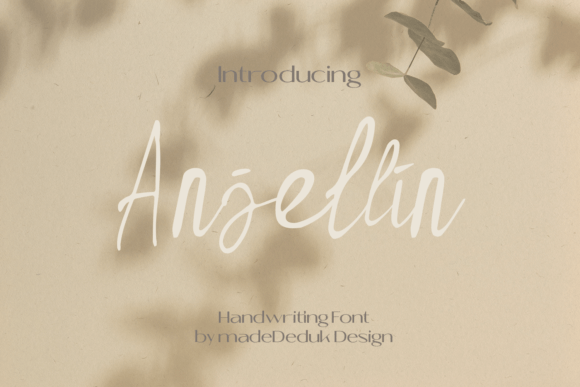
The Art of Handwritten Perfection: Introducing Anjellin Script Font
Do you remember the moment when you first discovered a font that perfectly captured the essence of your creative vision? For many designers, it’s a moment that sparks endless possibilities and sets their imagination on fire. As I recall my own journey, I’m reminded of the time I stumbled upon the Anjellin Script Font, and how it instantly elevated my designs to a whole new level.
Anjellin Script Font is a masterfully crafted, realistic script font that pays homage to classic handwriting. Its purpose is to provide designers with a versatile tool to create a wide range of visually stunning projects, from branding and product packaging to invitations and quotes. With its elegant and refined touch, Anjellin Script Font is a valuable asset for any designer looking to add a personal touch to their work.
Anjellin Script Font Key Features
- Font Style: A beautiful, elegant script font perfect for creative projects, invitations, and wedding designs.
- Unique Characteristics: Distinctive, flowing script letters with subtle flair and elegance, ideal for adding a touch of sophistication to your designs.
Anjellin Script Font Review
Anjellin Script Font is a beautiful and elegant script font that works well for titles, headings, and any other text that requires a touch of sophistication. ✨ Its fluid connections and smooth curves create a sense of luxury and refinement, making it perfect for high-end branding, advertising, and packaging design.
One of the standout features of Anjellin Script Font is its versatility. ✨ It comes in a range of weights and styles, allowing designers to choose the perfect version for their project. Whether you need a bold and statement-making font or a delicate and subtle one, Anjellin Script Font has got you covered.
- ⚠️ Limited font sizes: While Anjellin Script Font works well for titles and headings, it may not be suitable for large blocks of text or body copy.
Overall, I think Anjellin Script Font is a great addition to any designer’s toolkit. It’s a beautiful and versatile font that can add a touch of elegance to any project. However, designers should be aware of its limitations and use it judiciously to get the best results.
Tips for Getting the Most Out of Anjellin Script Font
Use the font in conjunction with bold or italic text to add emphasis and create visual interest.
Use the font to create beautiful quotes, captions, and titles.
Common Use Cases for Anjellin Script Font
The Anjellin Script Font is perfect for:
- Photography captions and quotes
- Editorial and literary publications
Alternatives to Anjellin Script Font
Great Vibes is a beautiful, elegant script font perfect for creating a sense of sophistication and luxury. It’s ideal for use in branding, advertising, and editorial design. Great Vibes has a more refined and polished look compared to Anjellin Script Font, making it suitable for high-end projects.
Lobster is a fun and casual script font that’s great for creating a playful and energetic vibe. It’s perfect for use in social media graphics, posters, and other informal design projects. Lobster has a more relaxed and cursive feel compared to Anjellin Script Font, making it suitable for projects that require a laid-back tone.
Q: Can I customize Anjellin Script Font to fit my specific design needs?
Yes, Anjellin Script Font is a highly customizable font. You can adjust the font’s weight, width, and style to suit your design requirements. Additionally, the font supports various OpenType features, such as ligatures, swashes, and ornaments, which can be used to add flair and personality to your designs.